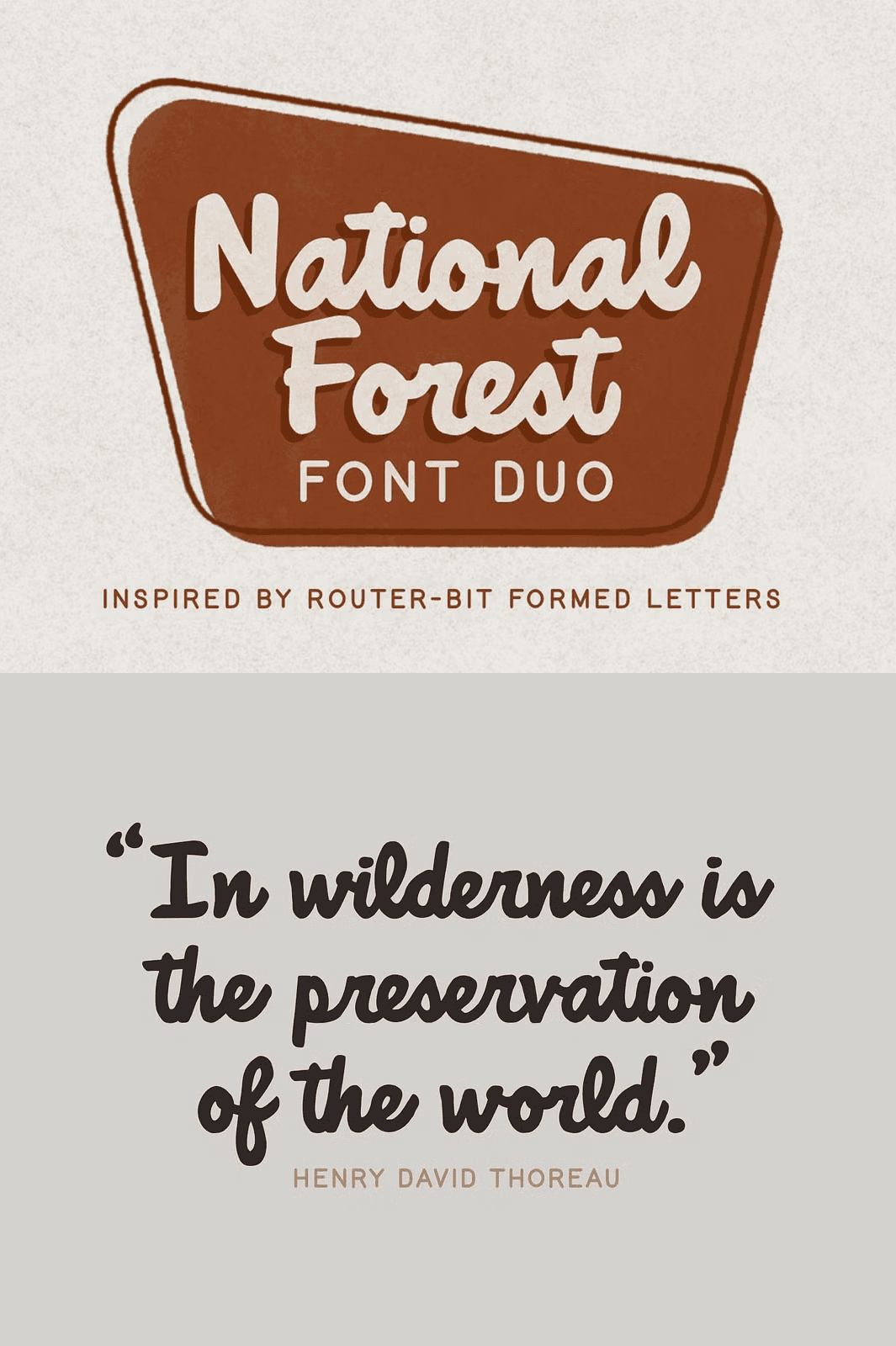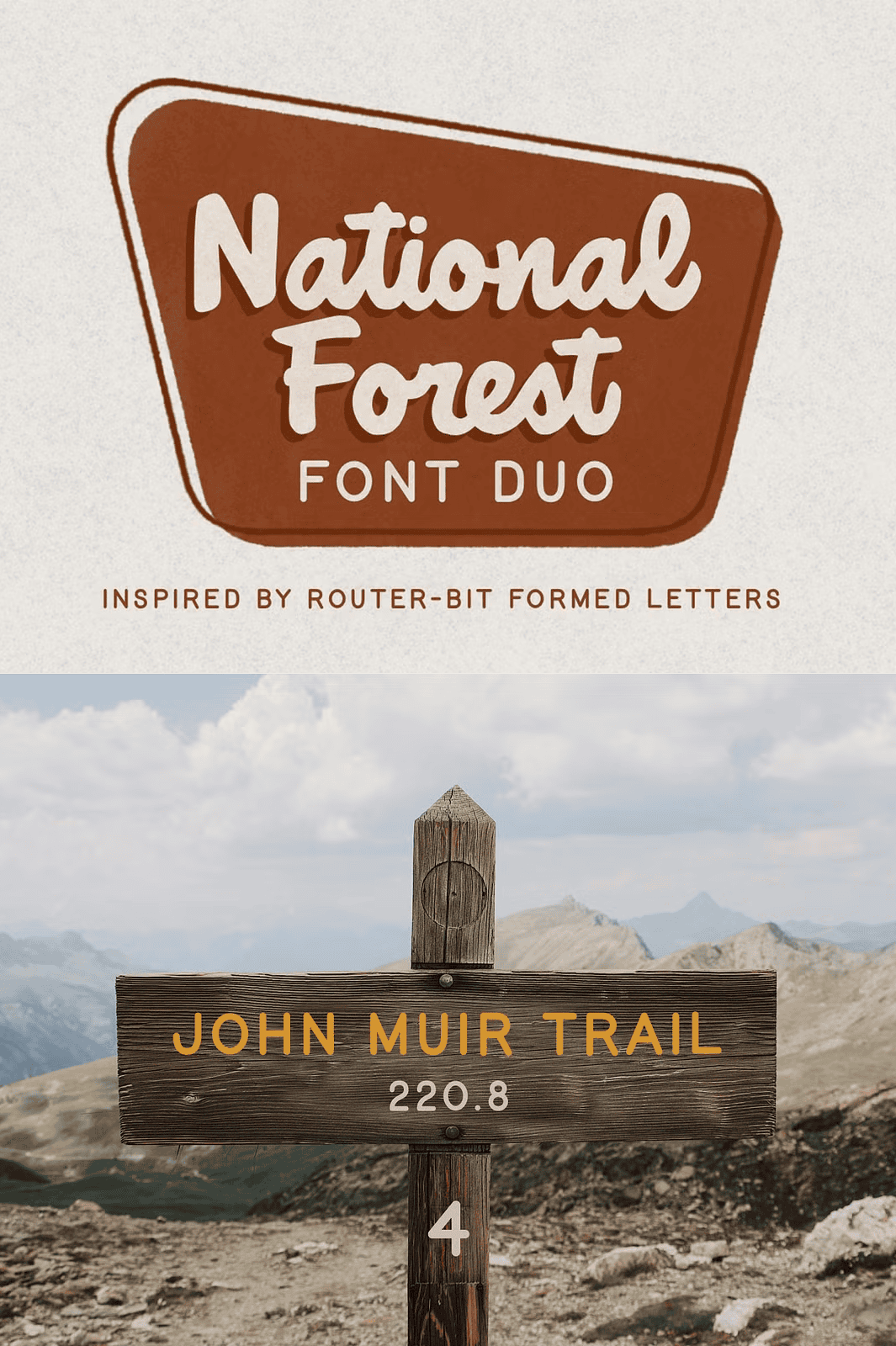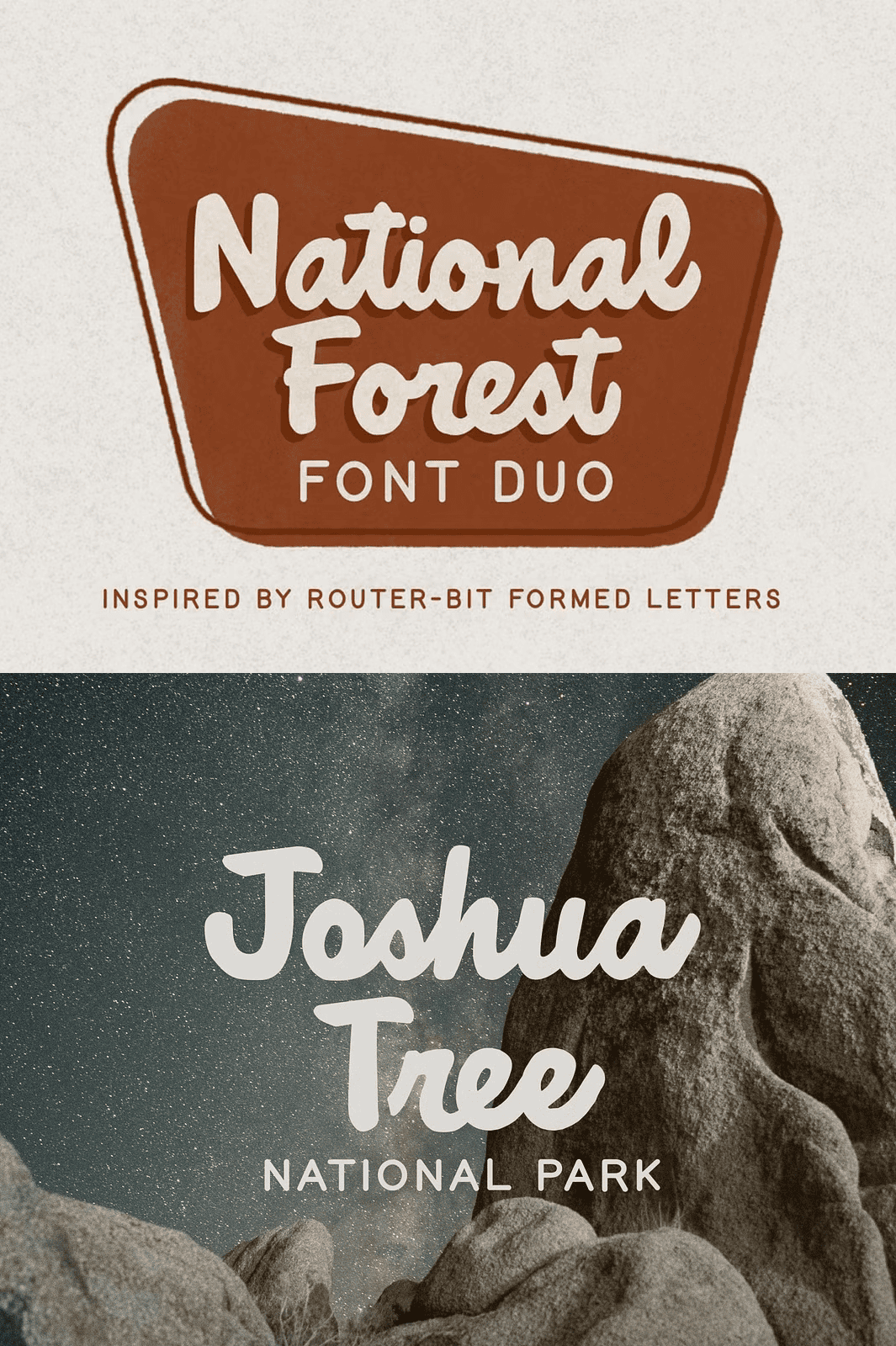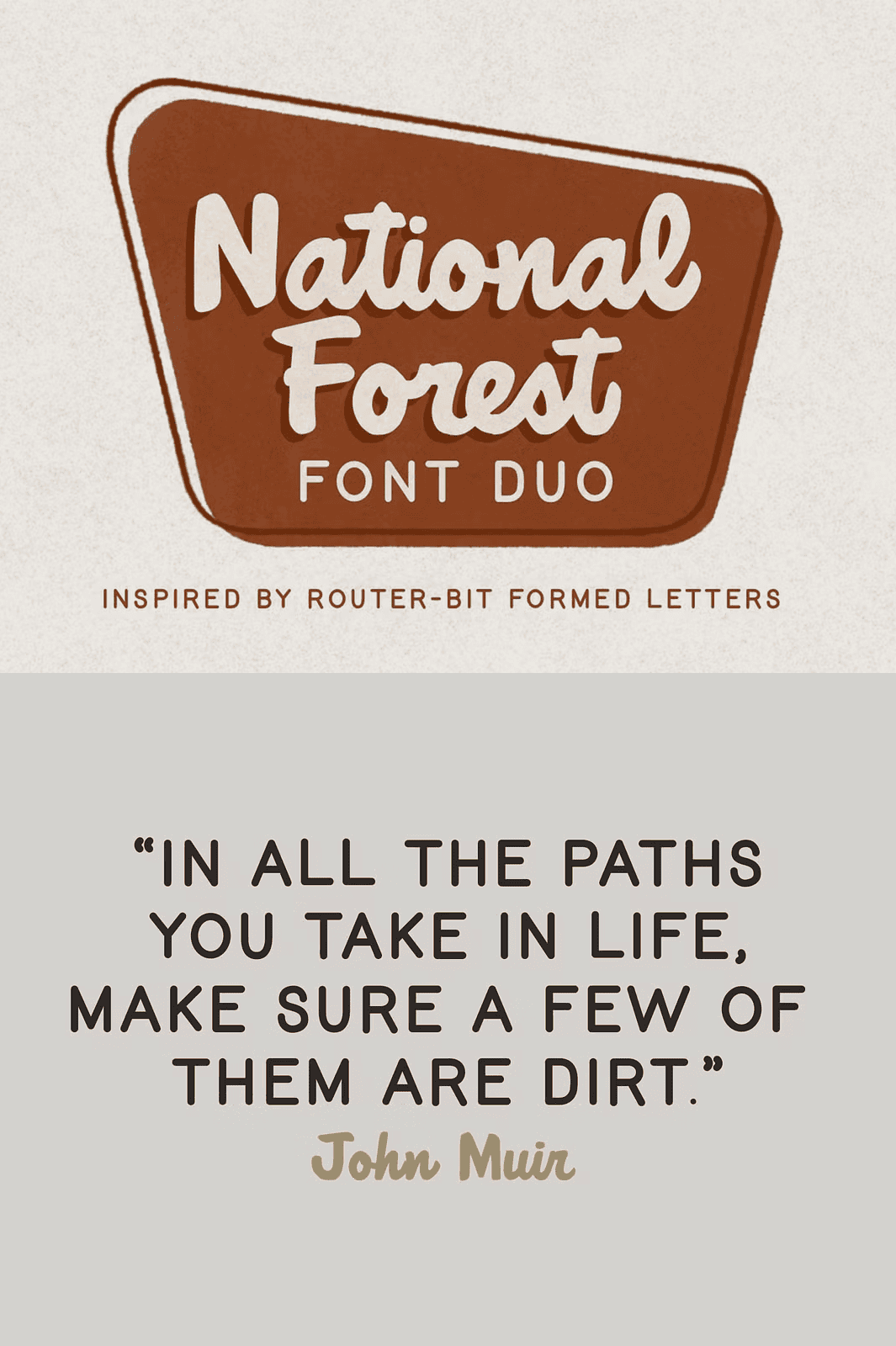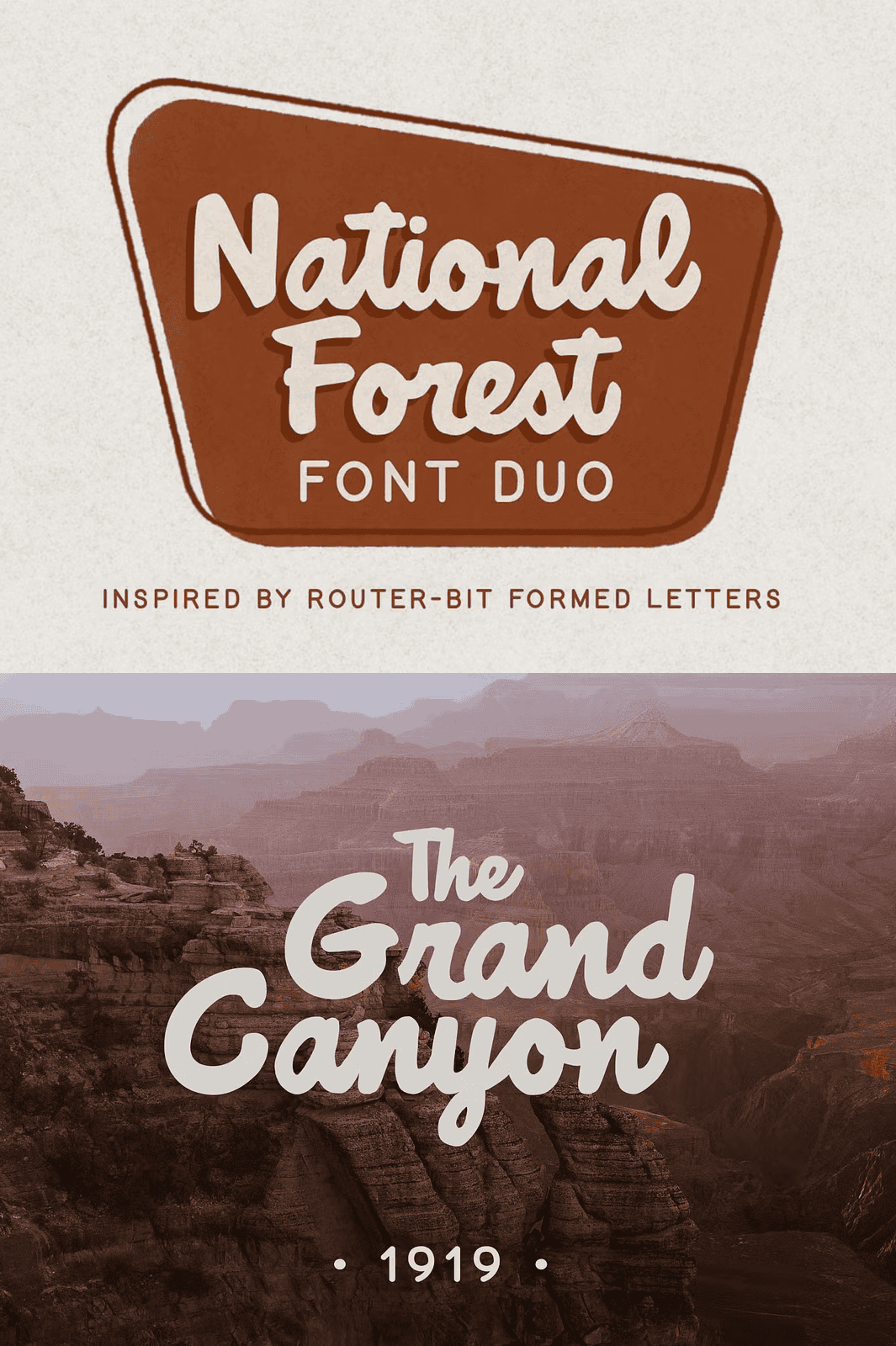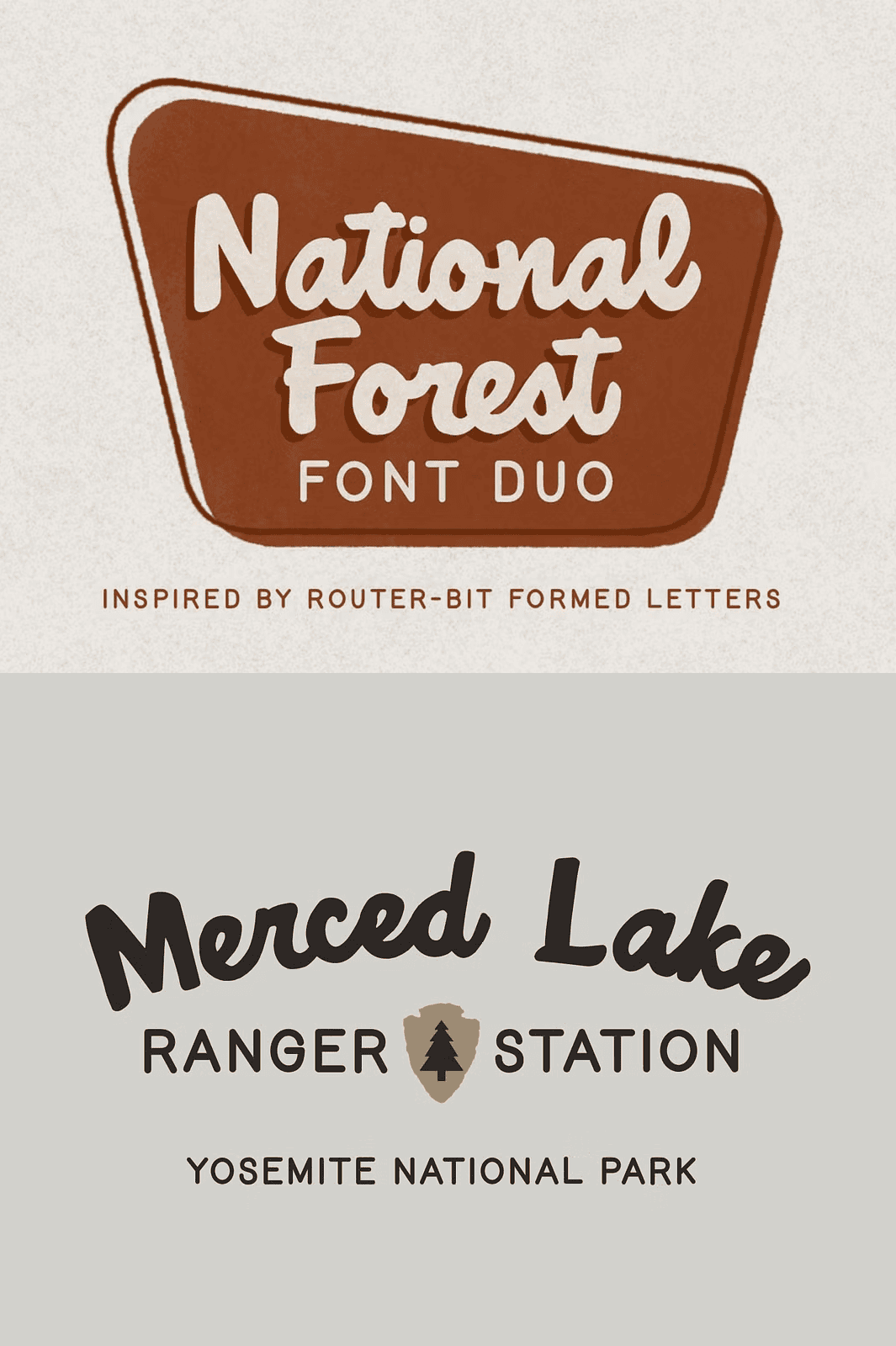
National Forest Font Duo
Recreate the Soul of Nature Trails: The National Forest Font Duo Captures Vintage Park Sign Aesthetic
Bring the nostalgic spirit of America’s National Park Service signs into your digital designs with **National Forest Font Duo** — a bold, character-rich typeface crafted to mirror the hand-crafted precision of router-cut signage. Every character is designed to reflect the authentic imperfections of real-world craftsmanship, giving it an organic, lived-in feel that mass-produced fonts simply can’t replicate.
This isn’t just a font — it’s a storytelling tool. Use it to evoke the rugged beauty of forest trails, the quiet serenity of mountain cabins, and the adventurous heart of outdoor exploration. Perfect for branding, packaging, display work, and marketing campaigns that crave authenticity, warmth, and personality.
Meet the Duo: Two Styles, One Unmistakable Identity
National Forest boasts two distinct yet harmonious styles that work beautifully together:
– **National Forest Script** – A flowing, hand-drawn script with deliberate irregularities and gentle flourishes that echo old-school sign-making. Ideal for headlines, invitations, labels, and quotes.
– **National Forest Print** – A clean, sturdy display face with a slightly uneven stroke and a tactile, hand-cut quality. Designed for clarity and impact in logos, product names, signage, and large-format designs.
Together, they form a dynamic typographic pair: pair the script for emotion and charm, and the print for strength and structure. Their contrast creates visual rhythm and balance — turning any design into a narrative.
Engineered for Creative Freedom: Advanced Features for Professional Use
Designed with both artists and professionals in mind, National Forest Font Duo delivers real-world functionality with advanced typographic tools.
**National Forest Script Features:**
– Full uppercase and lowercase alphabet with stylistic alternates
– Custom ligatures for natural flow in cursive sequences
– Swash and terminal variations for ornamental customization
– Comprehensive punctuation and number support
– Full OpenType functionality across major design platforms
**National Forest Print Features:**
– Bold, readable structure with irregular stroke weights that mimic real router cuts
– High legibility even at small sizes
– True glyph alignment and kerning for professional layout precision
– Built-in stylistic sets for quick variations